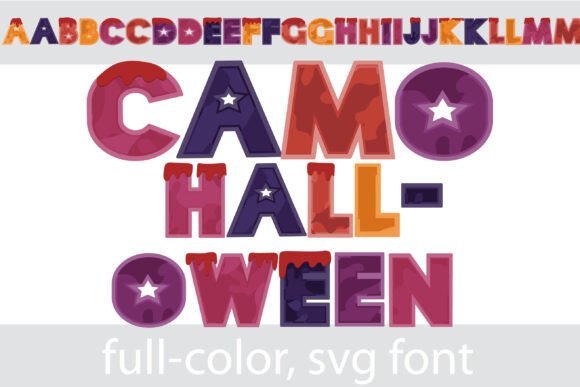
Unleash Your Creativity with the Spookiest Font of the Season
As the sun sets on Halloween night, the imagination sparks, and the creative juices start flowing. There’s something magical about this time of year that inspires designers to push the boundaries of their art. For many, it’s the perfect opportunity to unleash their creativity and experiment with bold, eye-catching fonts that set the tone for a spooky yet stylish celebration.
Enter the Camo Halloween Font, a full-color masterpiece that’s sure to cast a spell on your designs. This versatile font features camouflaged lettering in a haunting Halloween color palette, complete with oozing blood effects that add an extra layer of eeriness. Whether you’re creating titles, displays, posters, or more, this font is a valuable addition to any designer’s toolkit.
Camo Halloween Font Key Features
- Unique Characteristics: The Camo Halloween Font features a unique camouflaged design, with a blend of Halloween-themed elements and camouflage patterns, creating a spooky yet eye-catching effect.
- Legibility: Despite its unique design, the font remains highly legible, making it suitable for use in a variety of applications, including headings, titles, and body text.
Camo Halloween Font Review
Overall, I think Camo Halloween Font is a fun and unique addition to any Halloween-themed project. Here are some things that work well: ✨
- The font’s irregularities and imperfections give it a hand-drawn feel that’s perfect for a spooky aesthetic.
- The use of camouflage patterns adds an extra layer of depth and visual interest to the font.
- The font is available in a range of weights and styles, making it easy to customize for different uses.
- The font may not be suitable for projects where a more polished or professional look is required.
- The camouflage patterns can be distracting if used in large quantities, so it’s best to use them sparingly.
Overall, I think Camo Halloween Font is a great choice for Halloween-themed projects or any project that needs a touch of whimsy and playfulness. Just be sure to use it thoughtfully and in moderation to get the best results.
The Camo Halloween Font is perfect for creating spooky invitations, party decorations, and social media graphics.